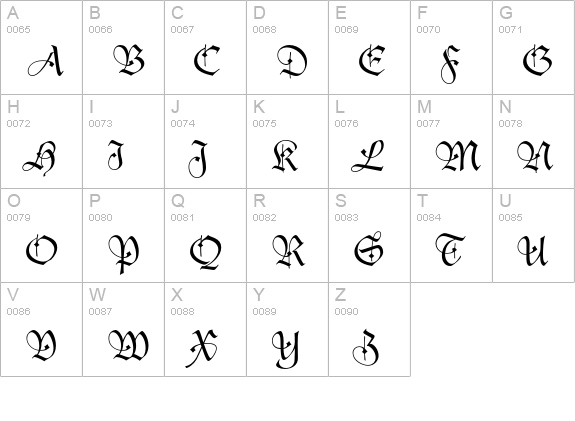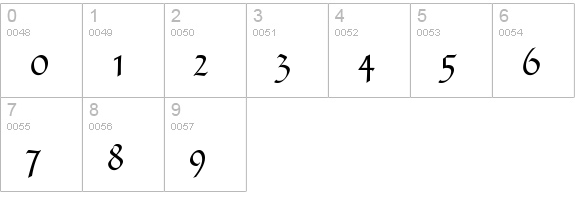
Duc De Berry font is a sophisticated and elegant typeface that exudes a sense of timeless charm and refined beauty. Its intricate details and graceful curves make it a perfect choice for adding a touch of sophistication to any design project. This font strikes a perfect balance between classic elegance and modern appeal, making it versatile for a wide range of applications. The best part is that Duc De Berry font is available for free download at FontsMarket.com. Now you can easily add this exquisite font to your collection without any cost. Don't miss out on the opportunity to enhance your designs with the timeless beauty of Duc De Berry font. Download it today and elevate your projects with its unique charm and elegance.